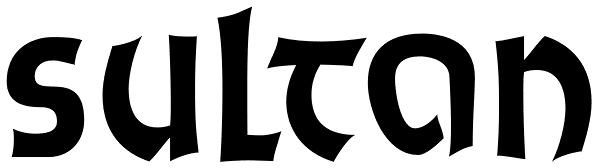
Sultan
Sultan is a revival and expansion of a 1954 Matrin Kausche typeface called Mosaik. This design highlights the unmistakable Arabic/Moorish calligraphy influence on Celtic lettering, by way of the highly active Andalusian culture from the ninth...